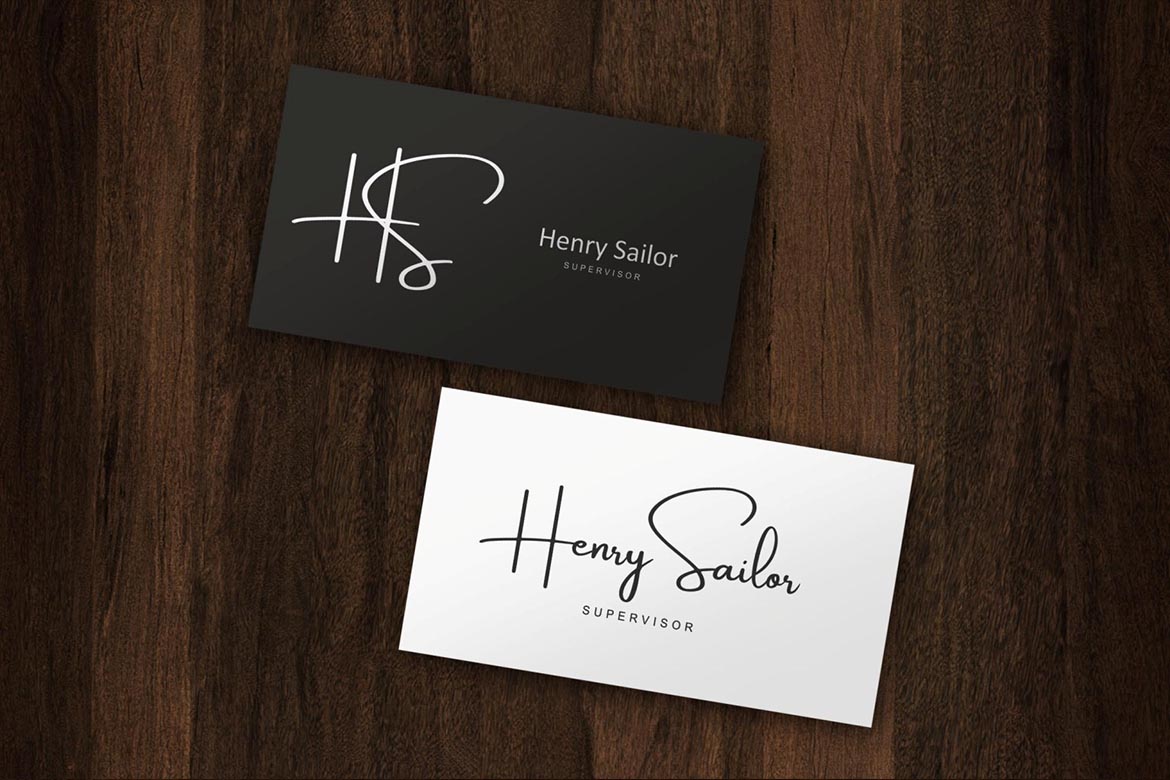
Free Amsterdam Elegant Font
Free amsterdam elegant font for any designer that is looking to display their design professionally. This is a downloadable typeface file brought to you by Pixelify. Easily amaze your audience with this fancy font and make your graphic designs pop up from the crowd.